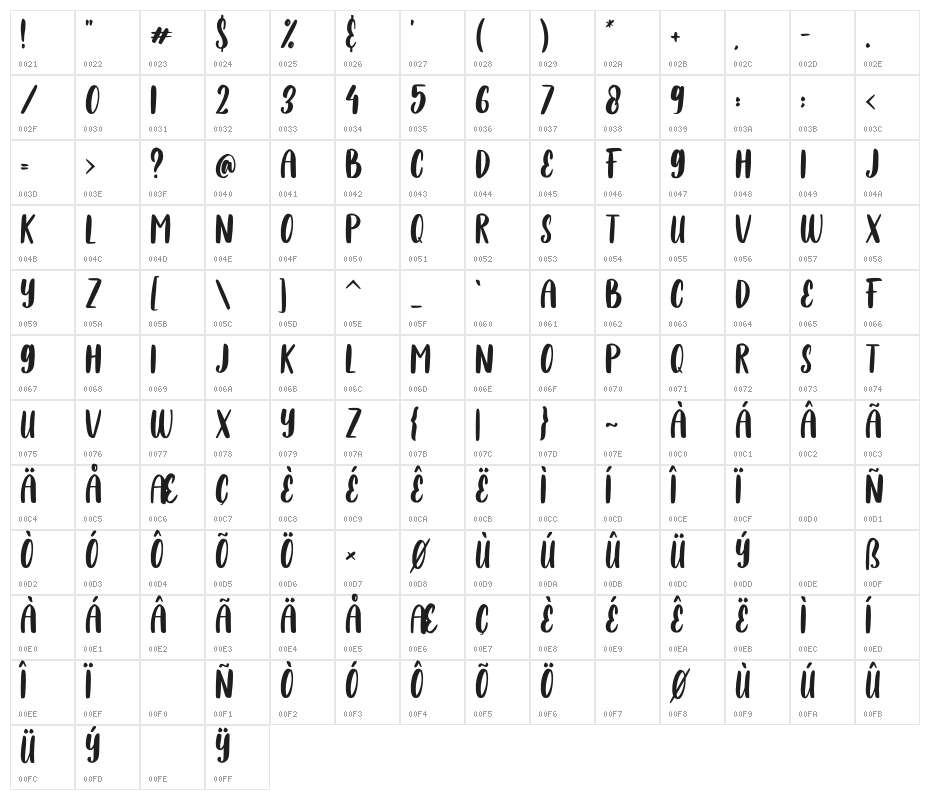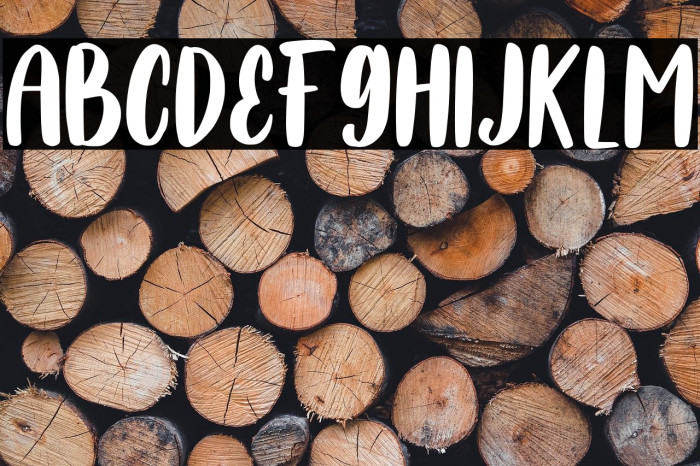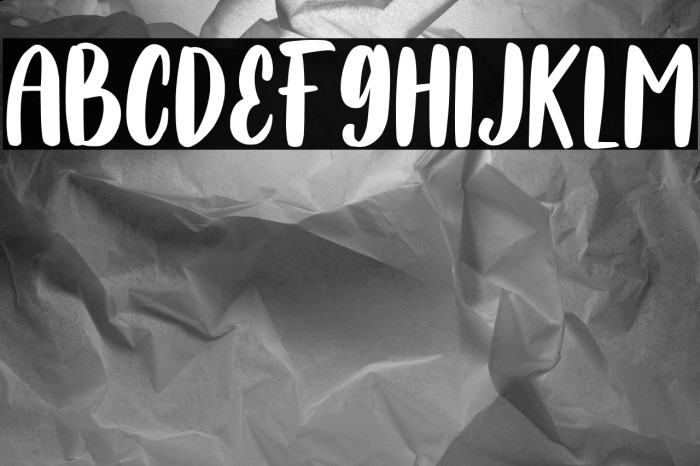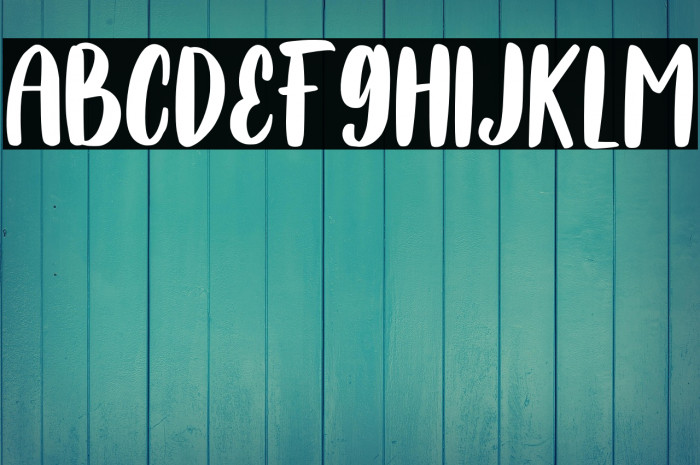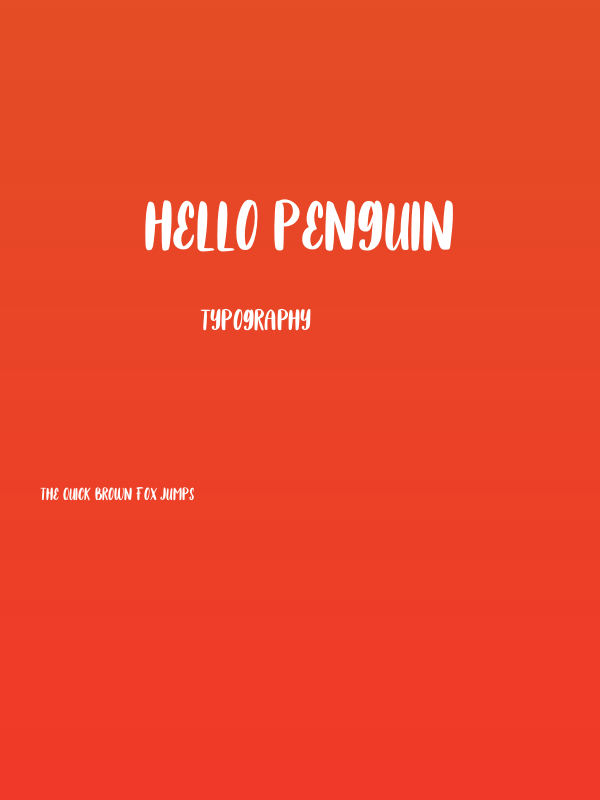
Hello Penguin Font
Hello Penguin Description
This font features a bold, playful style with a handwritten appearance. The letters are thick and rounded, giving a friendly and approachable feel. The uppercase and lowercase letters maintain a consistent height, while the numbers and special characters are designed to match the overall aesthetic. The strokes are smooth and fluid, adding a sense of movement and energy. This font is perfect for projects that require a casual and lively touch, such as greeting cards, posters, or social media graphics.
| Proposed Projects | Ideal for greeting cards, posters, social media graphics, and playful branding. |